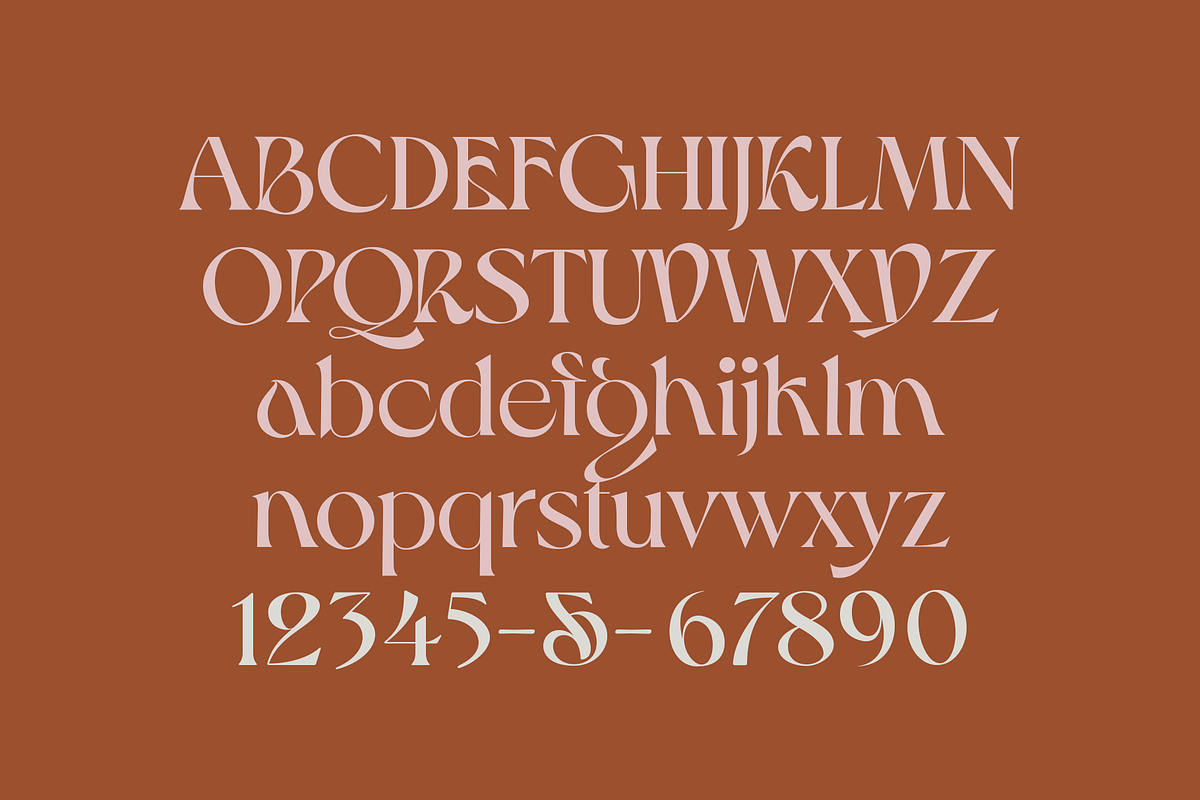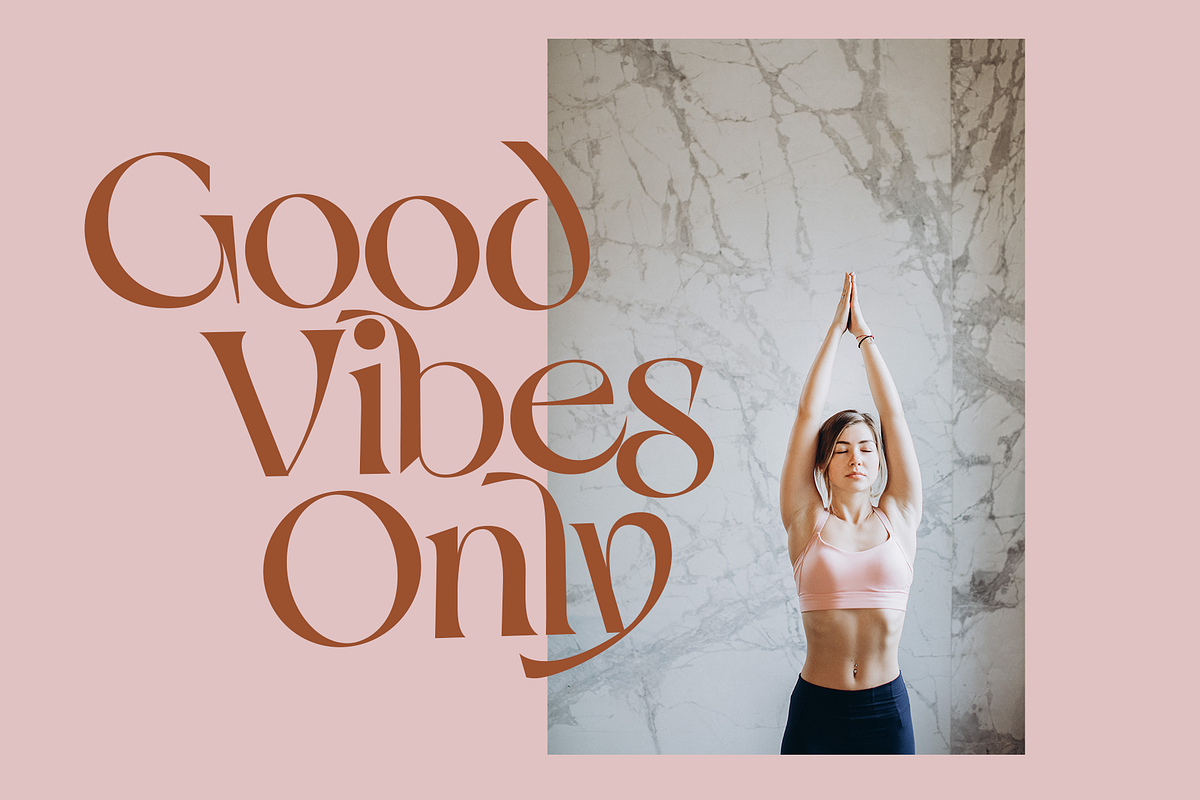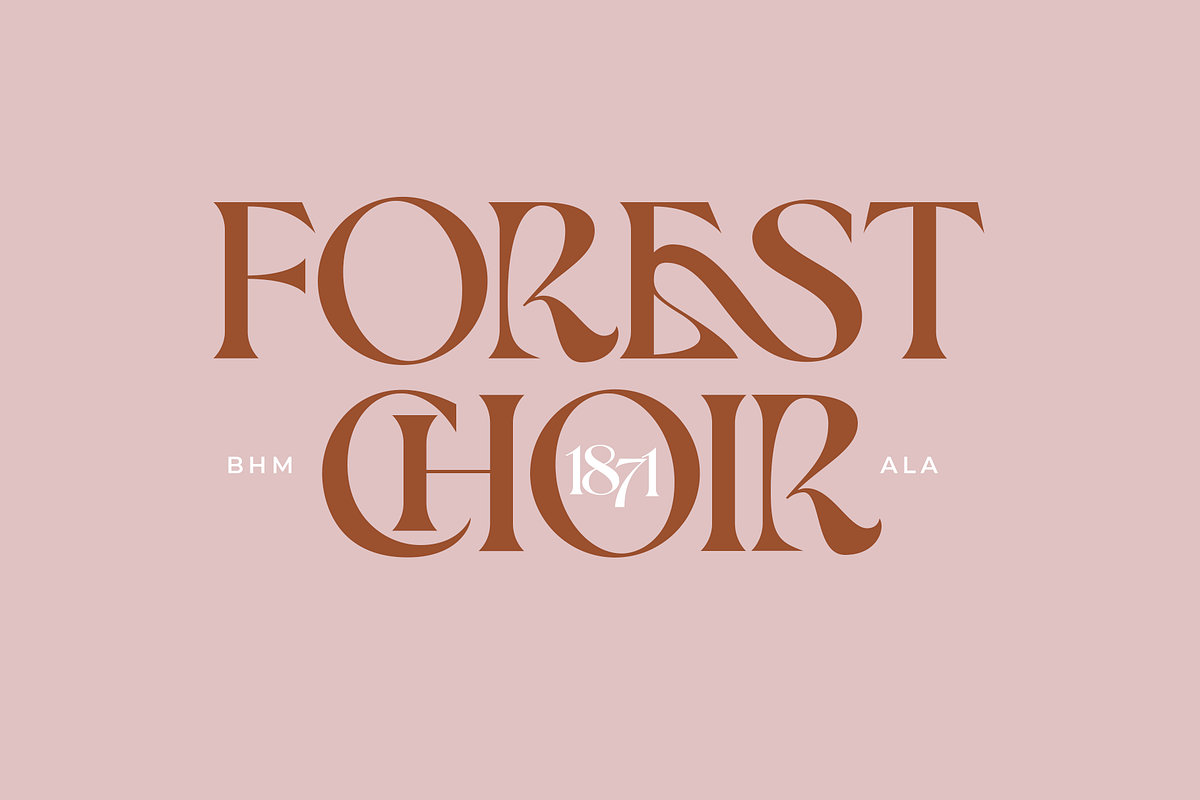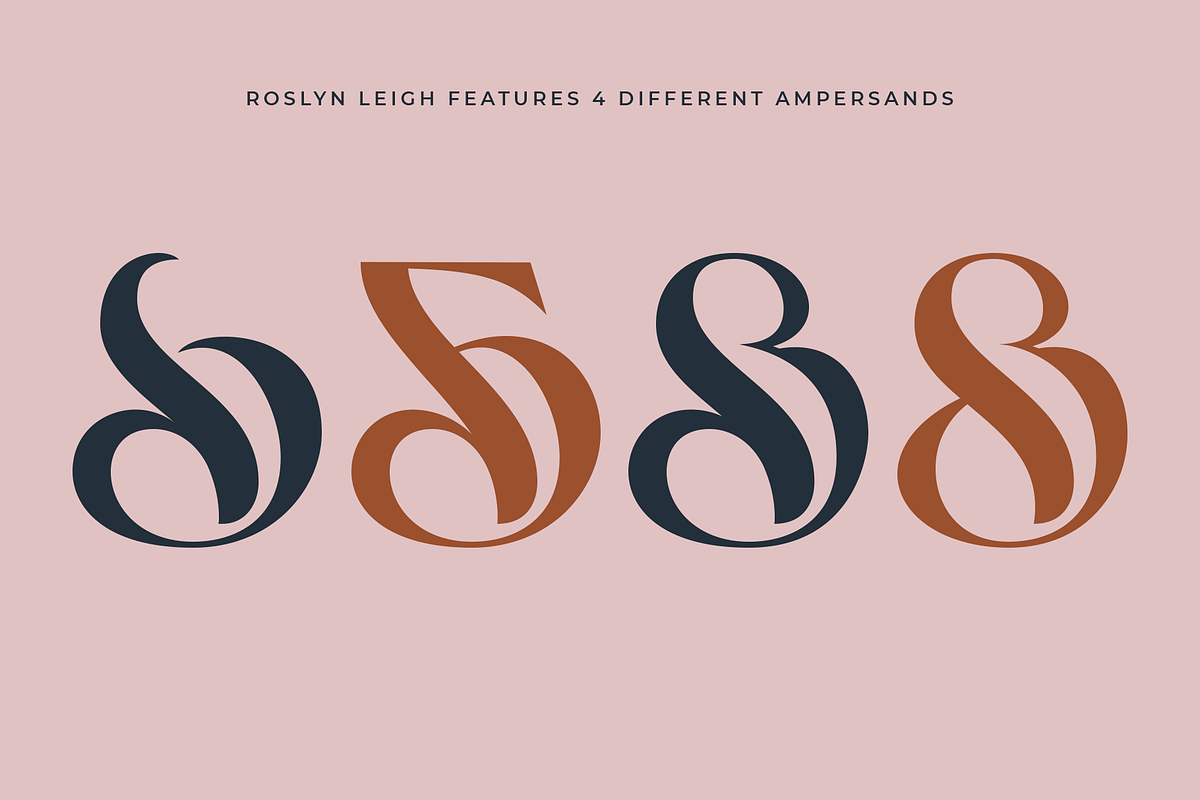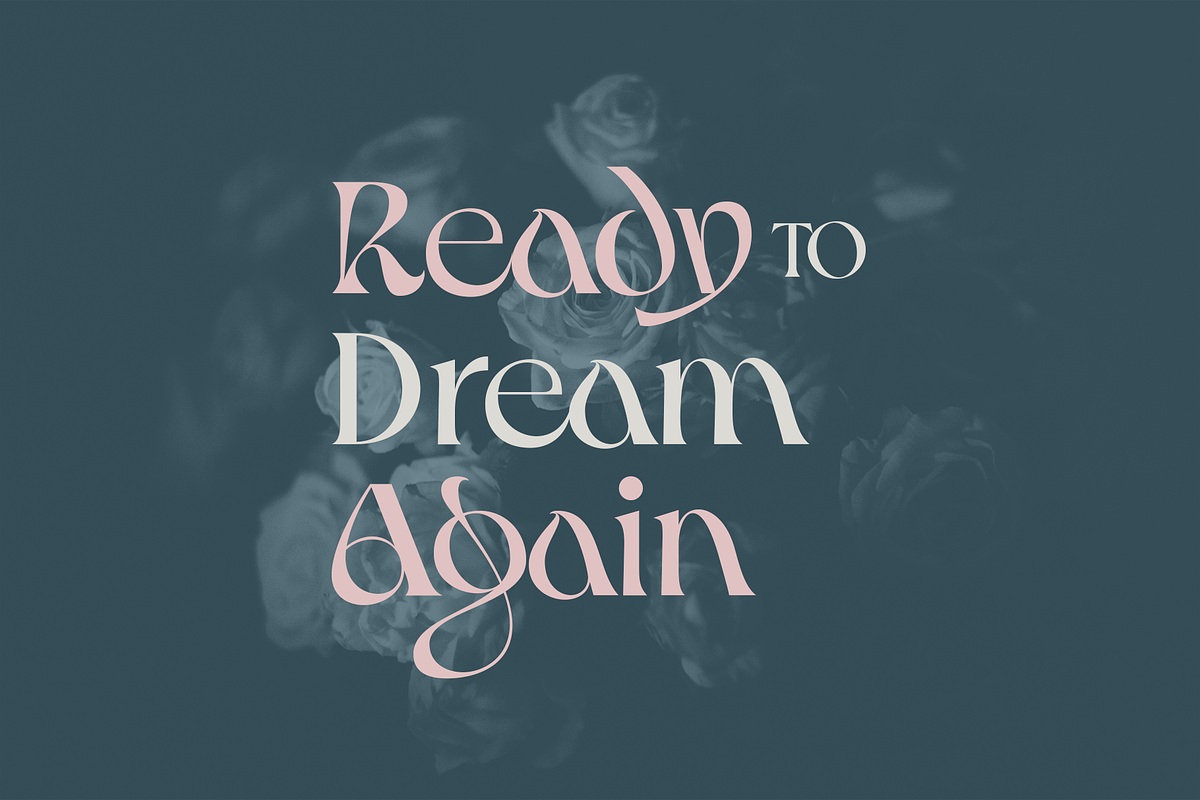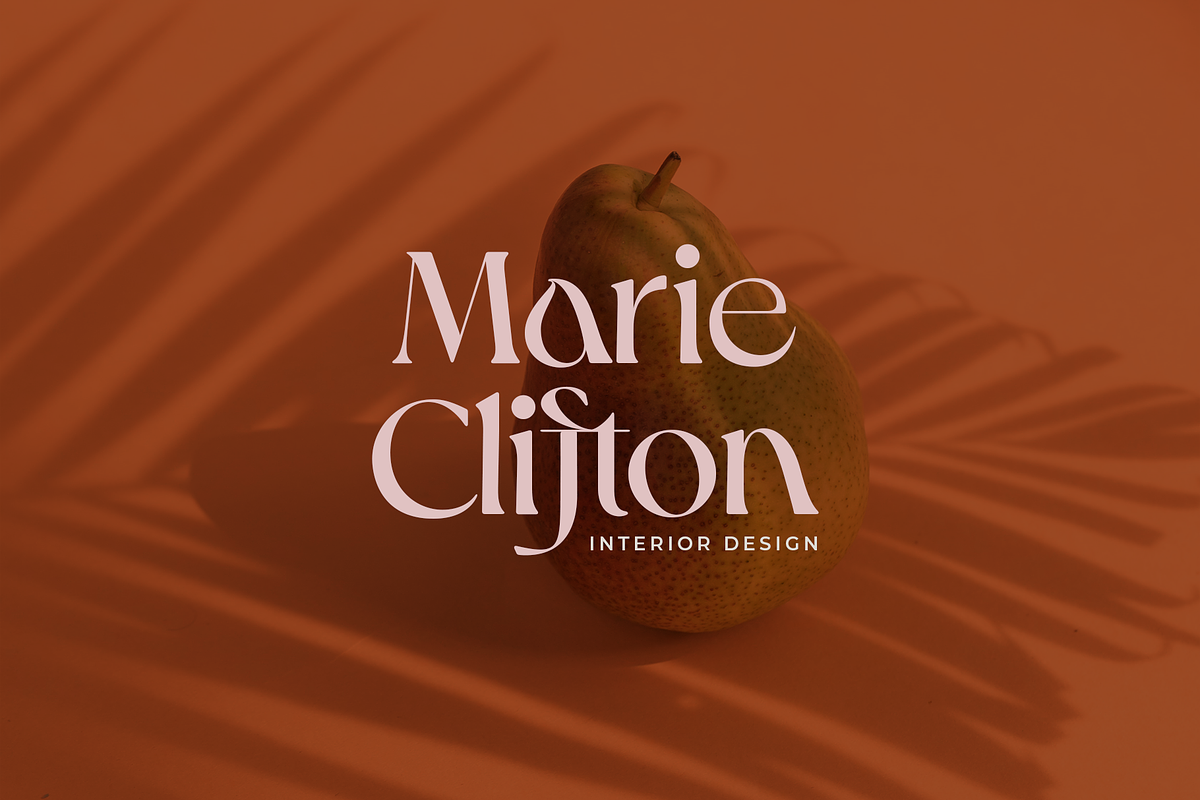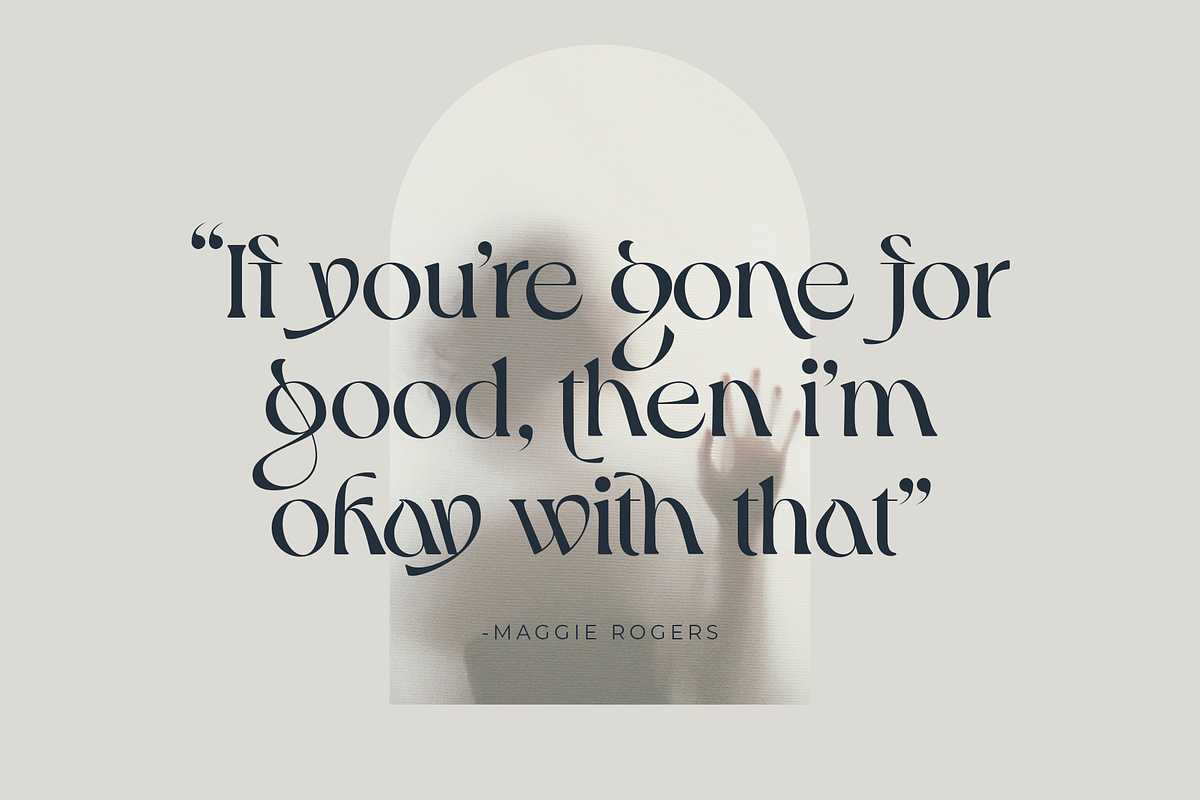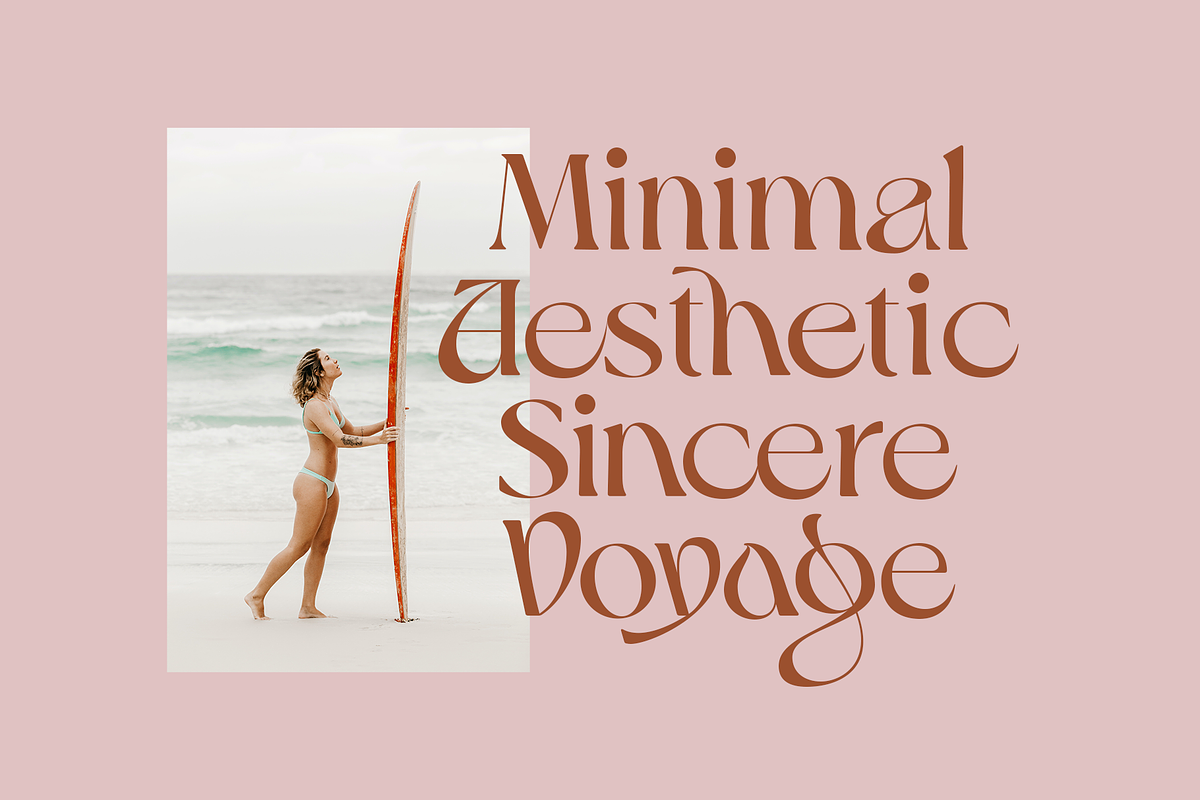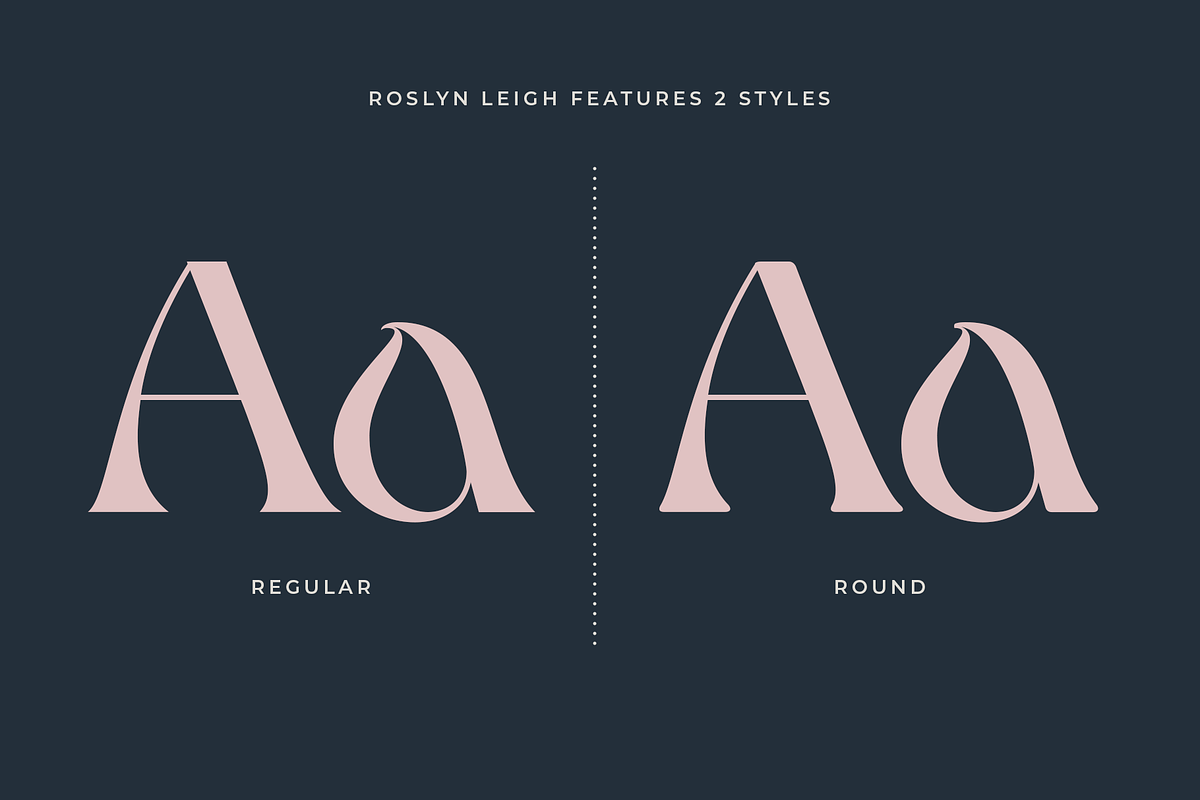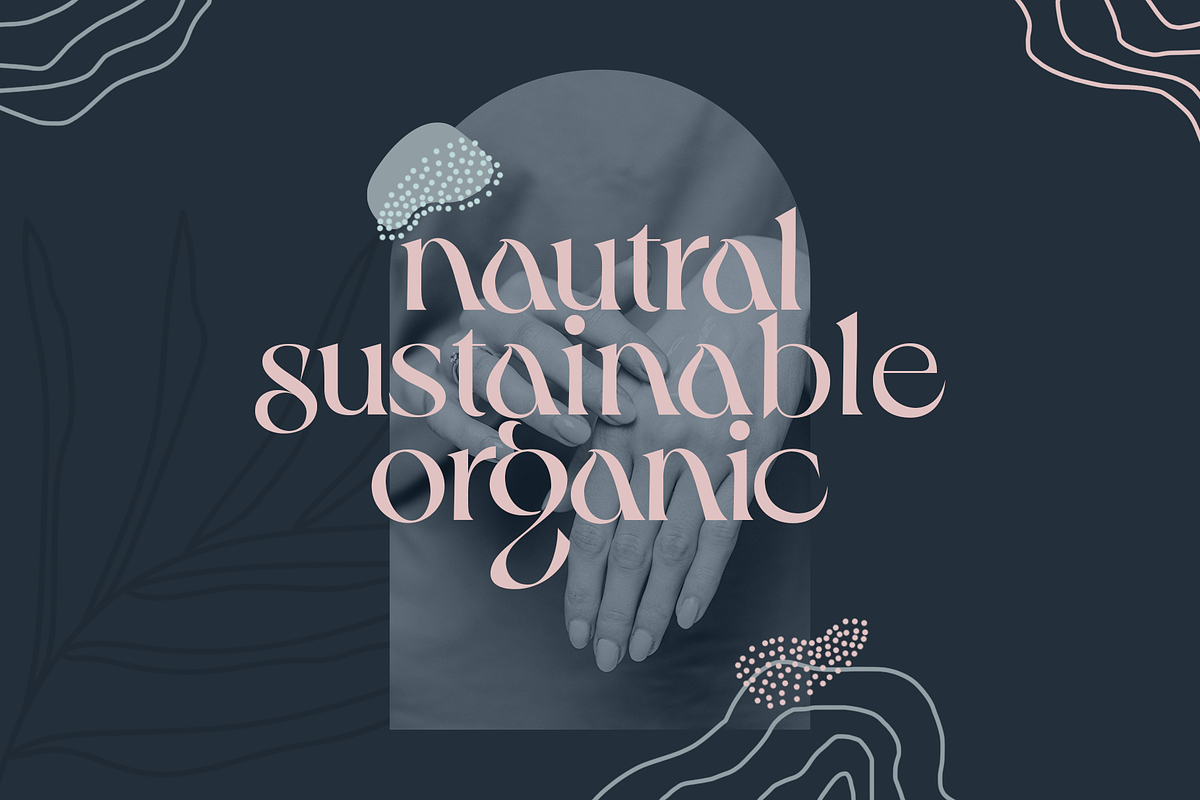
Roslyn Leigh - Display Serif
Roslyn Leigh is named after my baby girl, and just like her this font is playful, daring, and courageous. It features elegant curves and glorious serifs plus over 100 alternates and ligatures. Roslyn Leigh has 2 styles one is beautiful and defined while the other is more soft and approachable. It's perfect for packaging, branding, tees, or really anywhere you need a beautiful serif.
- Roslyn Leigh in 2 styles
- Over 100 alternates and ligatures
- 4 different ampersands